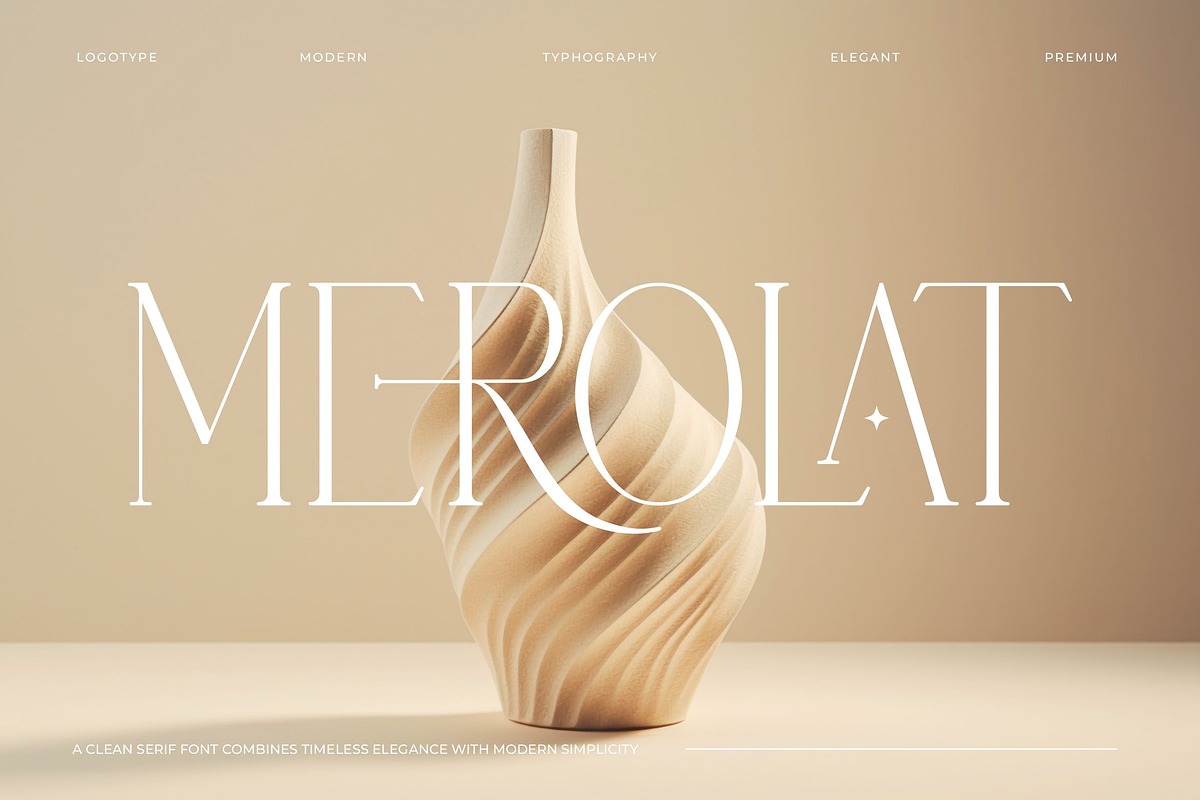
Merolat – Elegant Serif Font
Merolat – Elegant Serif Font is a versatile font designed to adapt beautifully across different design styles, offering dependable readability and balance. Merolat Serif is a modern and minimalist font type for all branding and logo designs. This modern and minimalist Serif font has a beautiful character. This font is suitable for invitation card designs, cool logos, movie titles, movie names, business cards, book titles, brand names, and various other designs. Merolat Serif is a smooth serif font that exudes sophistication and the moment. Its stylish ligatures make this font a perfect partner for any project.